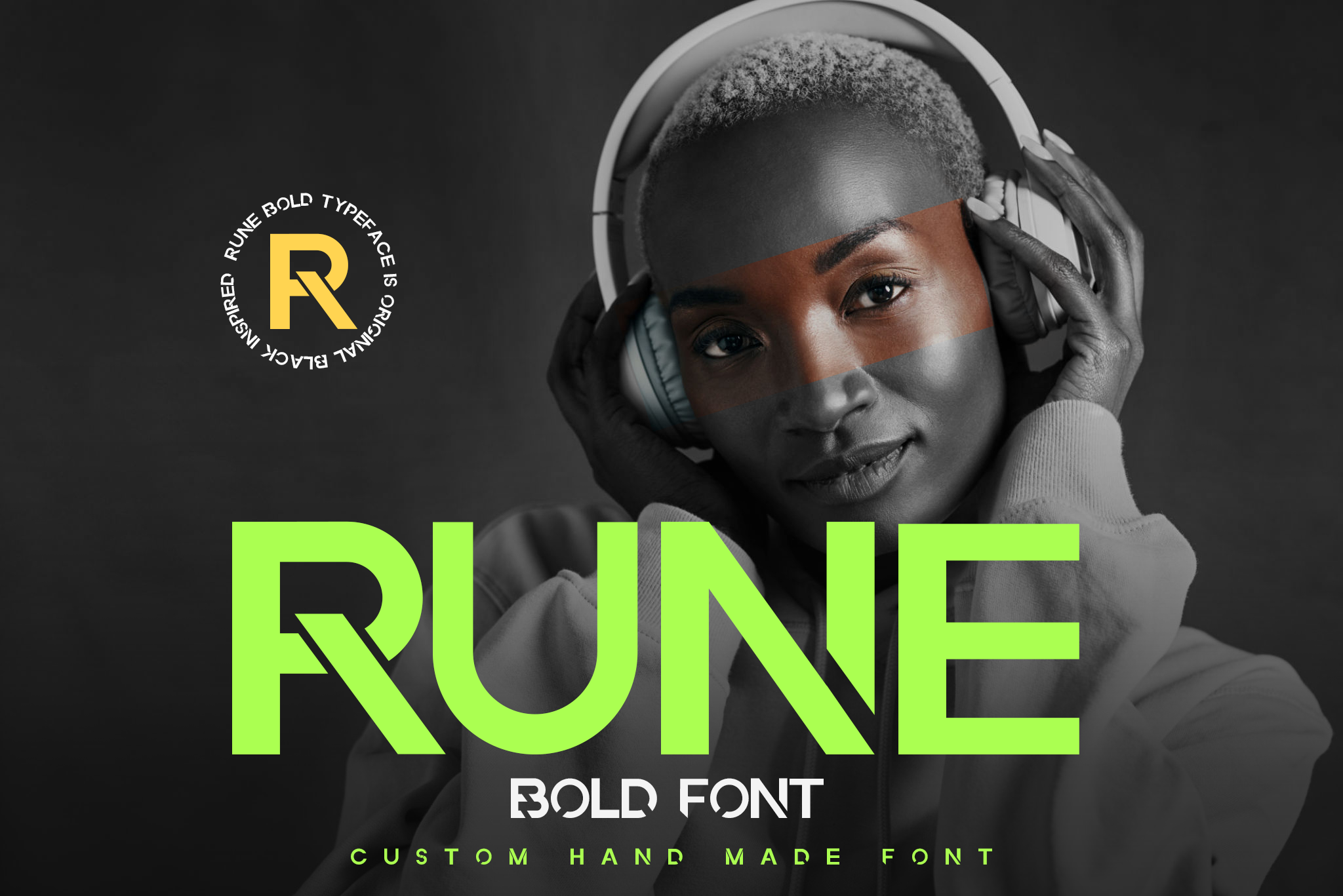
Rune Bold Font
RUNE is a Bold font sans serif regular and italic version. RUNE is perfect to use for logos, print, collage, body text, and more! It looks Bold a really cool modern-meets-vintage look to any piece.